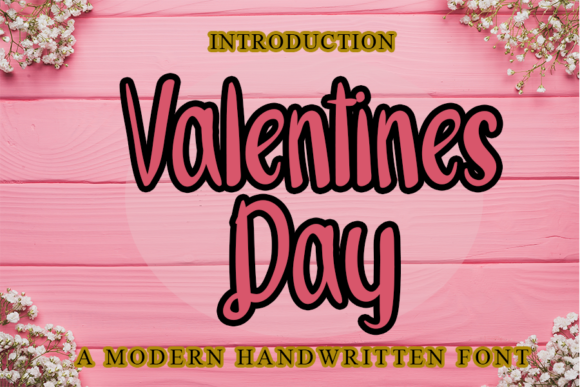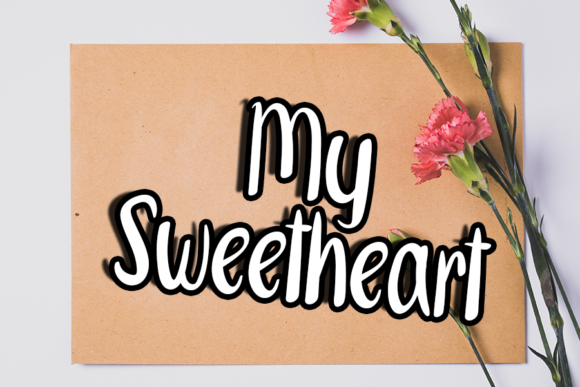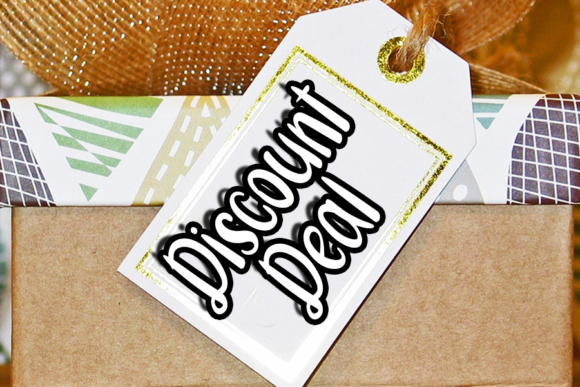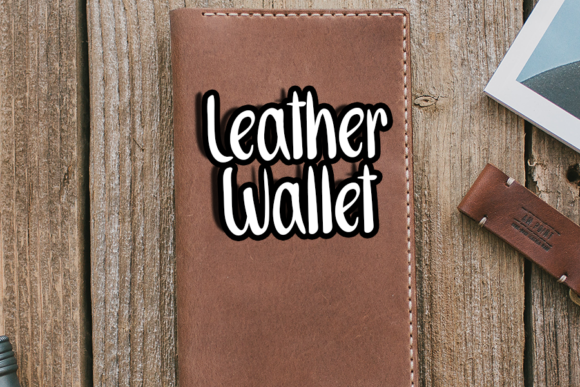
Personal Use Free Valentines Day 0 188 FacebookTwitterPinterestWhatsApp 1 of 4 About Valentines Day Font Valentines Day is a bold and simple handwritten font. This font looks incredibly adept on a wide variety of contexts! DOWNLOAD NOW